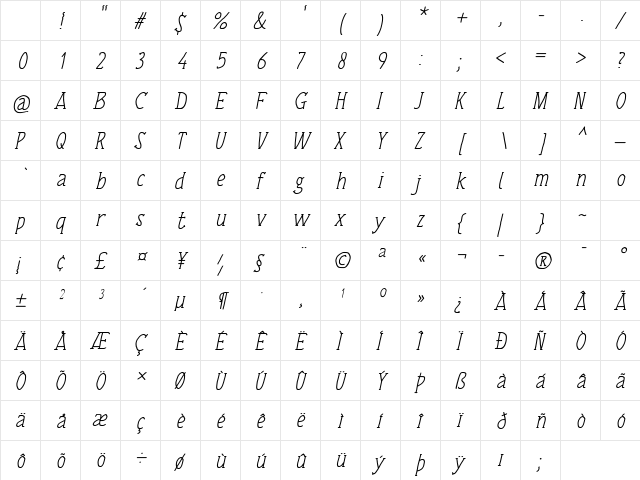
Tulisan Tangan 74 Italic
Designer: Situjuh Nazara
Complete Tulisan Tangan 74 Italic glyph index. Displaying only characters natively supported by Tulisan Tangan 74 Italic font.
Design Context for Tulisan Tangan 74
Tulisan Tangan 74 is a composed and adaptable typeface that performs quietly and consistently across a wide range of design contexts. The slanted form adds forward momentum and visual energy.
Pro Tip: Use Tulisan Tangan 74 for emphasis, pull quotes, and subheadings where its slanted energy can add rhythm to the layout.